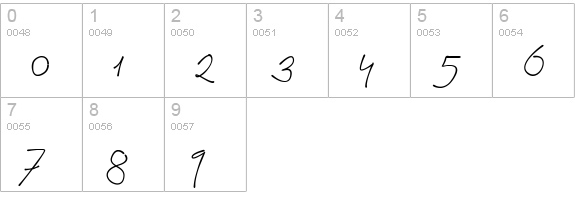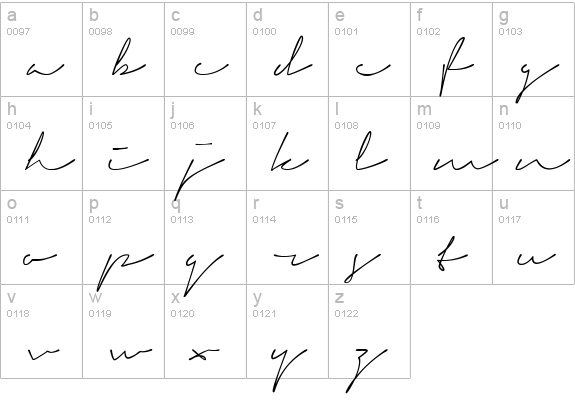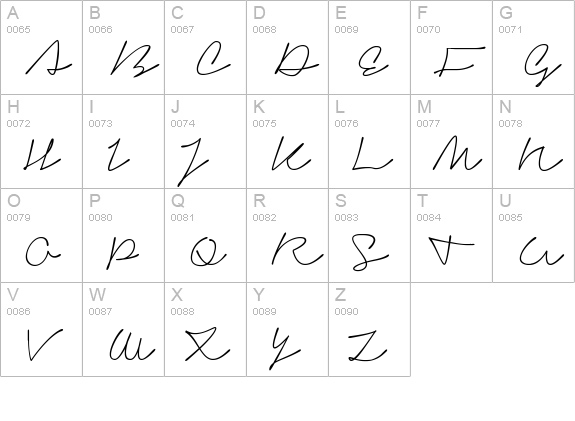
Signerica Medium Font Details
Signerica Medium is a balanced, medium-weight variant in the Signerica typeface family \xE2\x80\x94 well suited to sub-headlines, navigation, and balanced editorial work.
Signerica Medium font is a beautifully crafted typeface that exudes elegance and sophistication. Its medium weight strikes the perfect balance between boldness and subtlety, making it a versatile choice for a wide range of design projects. The graceful curves and flowing lines of Signerica Medium font lend it a sense of fluidity and grace, making it a perfect choice for wedding invitations, luxury branding, and sophisticated editorial layouts. Its clean and legible letterforms ensure readability across various sizes, whether it's used for headings or body text. What sets Signerica Medium font apart is that it is available for free download at FontsMarket.com. This means that designers and creatives have easy access to this exquisite typeface without any financial constraints. With its freely available download, Signerica Medium font empowers designers to bring their visions to life, without compromising on quality or style. Whether you're designing a timeless logo, creating an eye-catching poster, or crafting a memorable website, Signerica Medium font is sure to elevate your designs to new heights. Its versatility, combined with its easy availability, makes it a must-have in every designer's toolkit. Download Signerica Medium font for free at FontsMarket.com and unlock the potential to create stunning and captivating designs that leave a lasting impression.